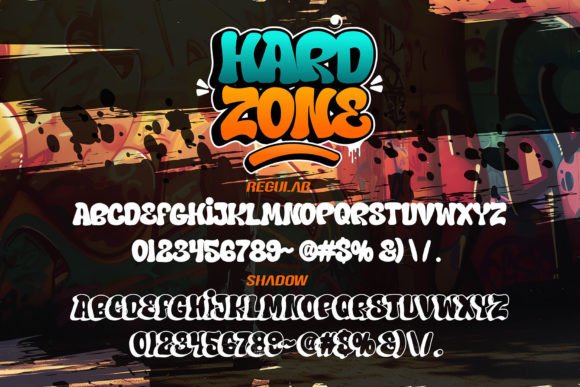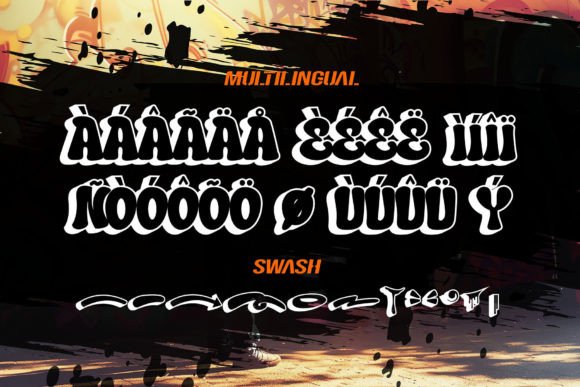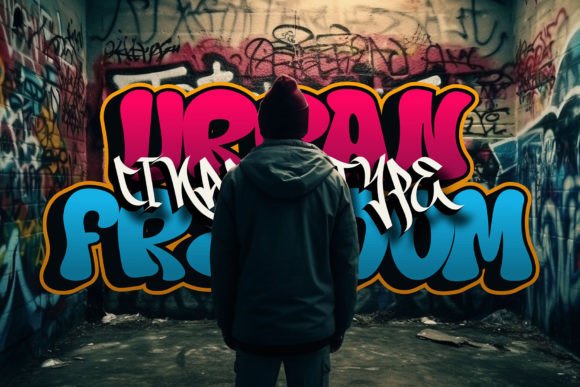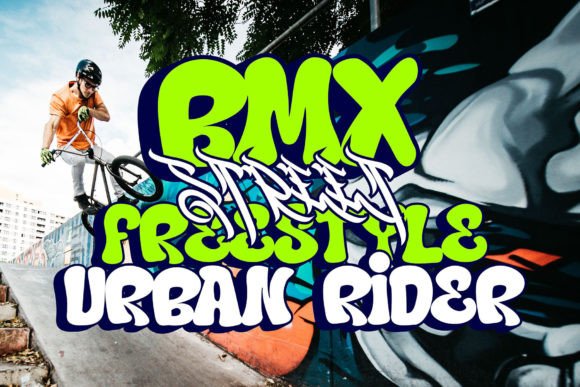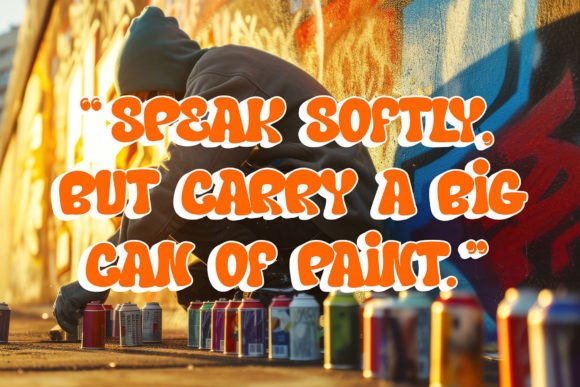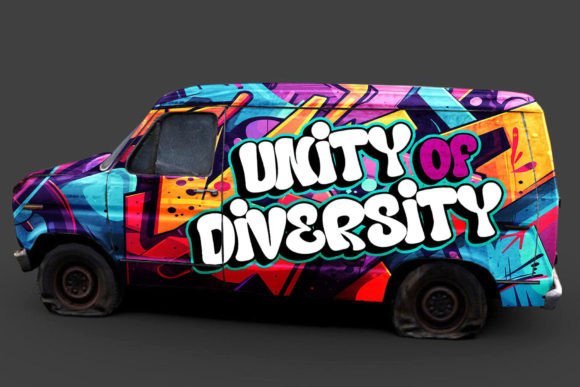
Unleash the Power of 3D Graffiti with Hard Zone Font
In the world of typography, a font can make or break the visual appeal of a design. For designers and crafters looking to add an urban, edgy flair to their projects, Hard Zone – a remarkably 3D layered graffiti font – is the perfect solution. Packed with regularly crafted letters and sweeping swashes, this font is designed to give your designs an instant feel of power and dynamism.
The Unique Features of Hard Zone Font
What sets Hard Zone apart from other fonts is its sophisticated layering and shadow play. Shadows blend cleverly with every character, creating an illusion of depth and a 3D vibe that notably uplifts the visual appeal. This means that your text won’t just be read, but remarkably observed. Whether you’re working on street-inspired ventures, assertive headlines, or mesmerizing ad copies, Hard Zone never fails to be attention-grabbing.
Hard Zone is the go-to font for projects craving an influential and urban flair. Its blend of versatility and raw edgy appeal makes it perfect for designers and crafters who want to add a touch of graffiti to their work. With Hard Zone, you can create stunning designs that are sure to grab attention. From bold headlines to eye-catching ad copies, this font is designed to make your text stand out.
Key Benefits of Using Hard Zone Font
- Attention-grabbing: Hard Zone is designed to grab attention and make a statement. Its 3D layered graffiti style ensures that your text is noticed.
- Versatile: This font is perfect for a wide range of design projects, from street-inspired ventures to assertive headlines and mesmerizing ad copies.
- Unique: The sophisticated layering and shadow play of Hard Zone create a unique and eye-catching effect that sets it apart from other fonts.
Tips and Tricks for Getting the Most Out of Hard Zone Font
To get the most out of Hard Zone, here are a few tips and tricks:
- Experiment with different colors: Hard Zone looks great in bold, bright colors. Experiment with different colors to find the one that works best for your design.
- Use swashes: The sweeping swashes in Hard Zone add a touch of graffiti to your designs. Use them to create a more dynamic look.
- Play with layering: The sophisticated layering of Hard Zone creates a 3D effect. Experiment with different layering effects to find the one that works best for your design.
Hard Zone is a powerful and versatile font that is perfect for designers and crafters looking to add an urban, edgy flair to their projects. Its unique 3D layered graffiti style, attention-grabbing design, and ease of use make it a must-have font for any designer. Whether you’re working on street-inspired ventures, assertive headlines, or mesmerizing ad copies, Hard Zone is the perfect solution.
Get Ready to Take Your Designs to the Next Level